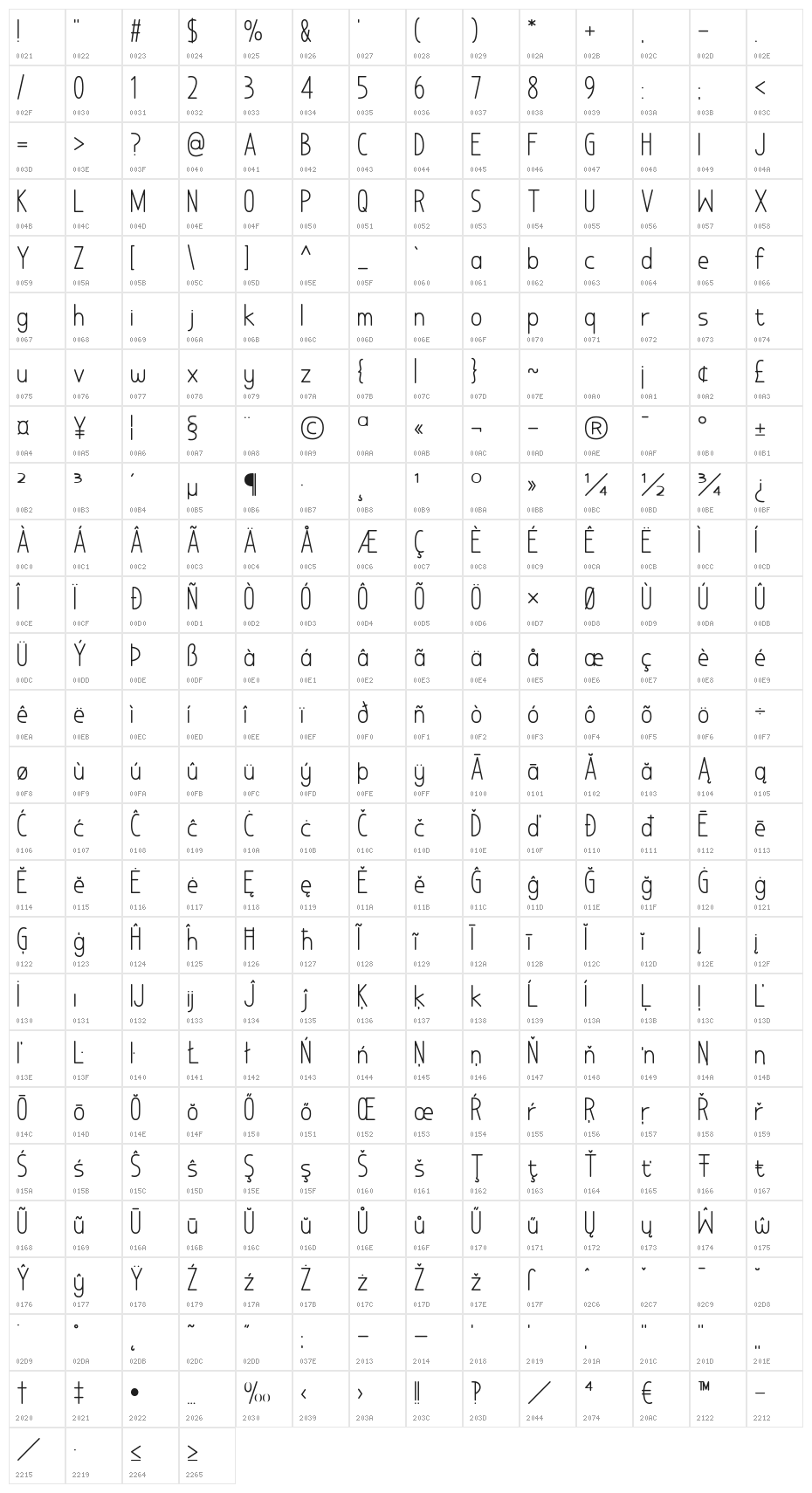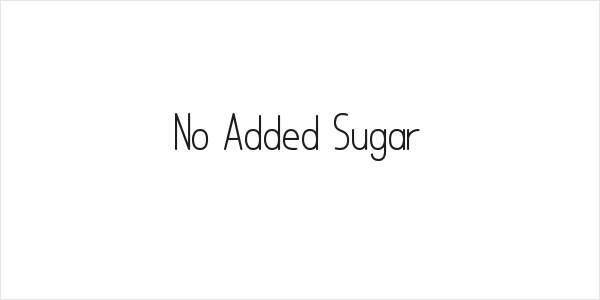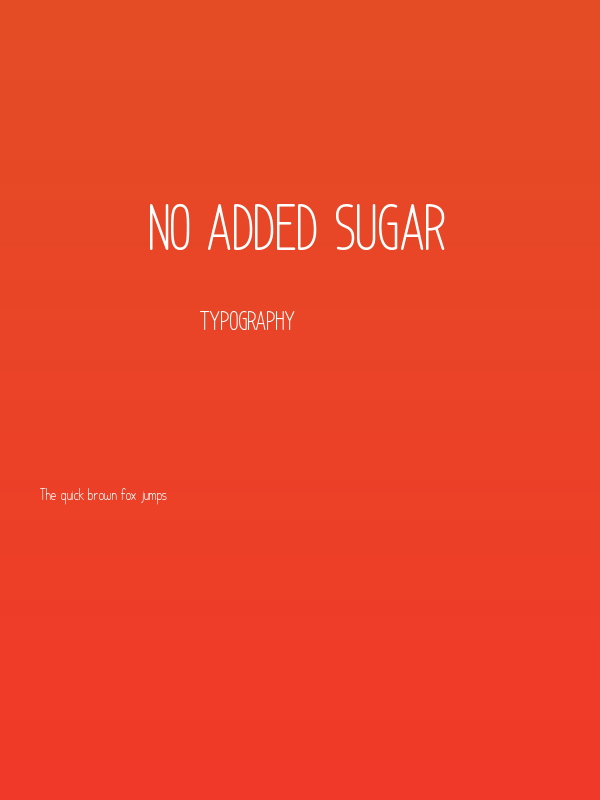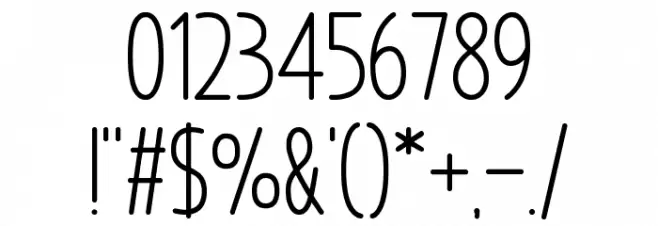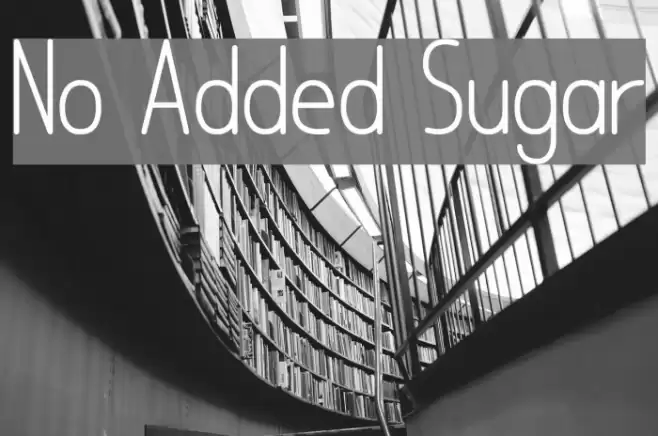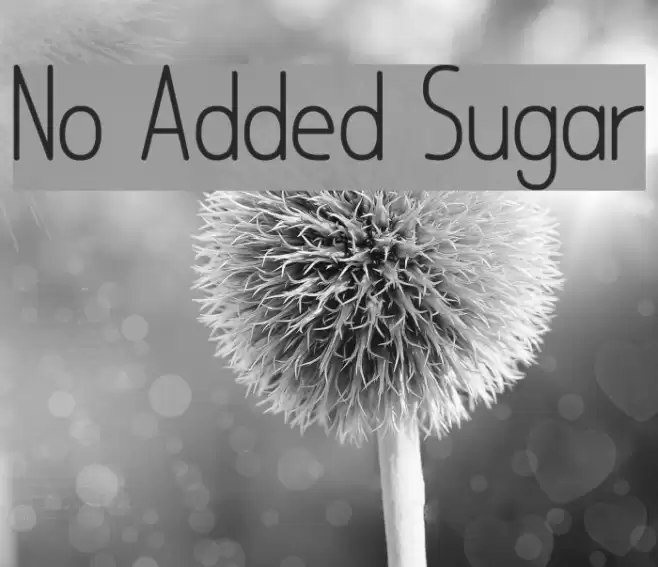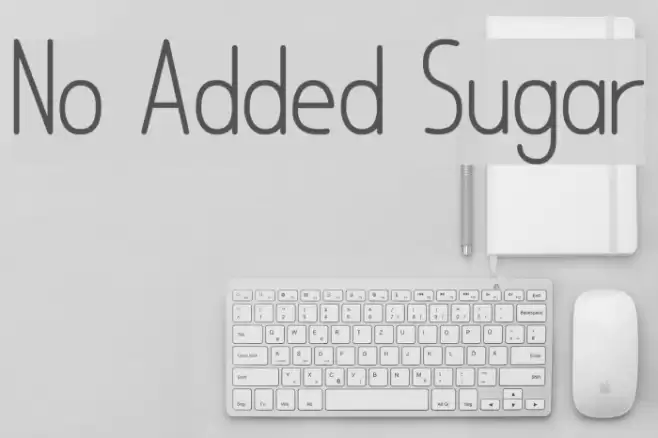
No Added Sugar Font
No Added Sugar Description
This font features a clean and modern sans-serif style with a slightly rounded appearance. The characters are evenly spaced, providing a balanced and harmonious look. The uppercase letters are tall and narrow, while the lowercase letters maintain a consistent height, enhancing readability. The numerals are clear and distinct, making them suitable for various applications. Special characters are well-defined, ensuring versatility in design projects. The overall design is sleek and contemporary, making it ideal for both digital and print media.
| Use Case | Headlines, Body text, Logos |
| Proposed Projects | Ideal for branding, web design, packaging, and editorial layouts. |